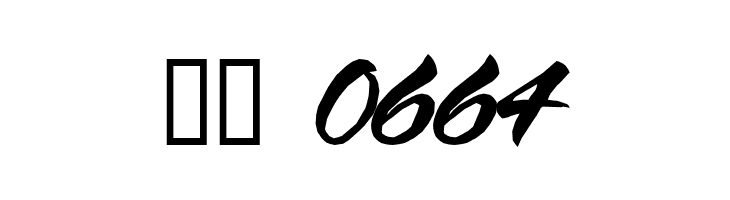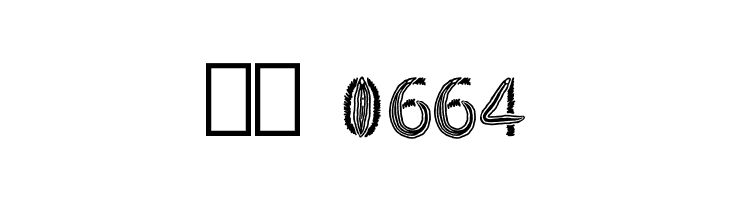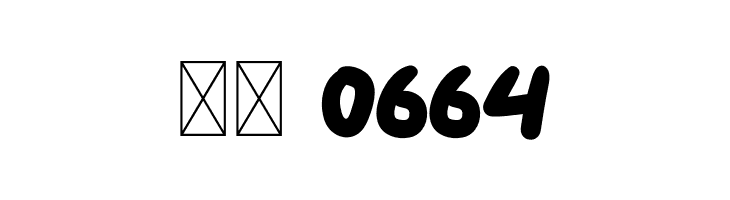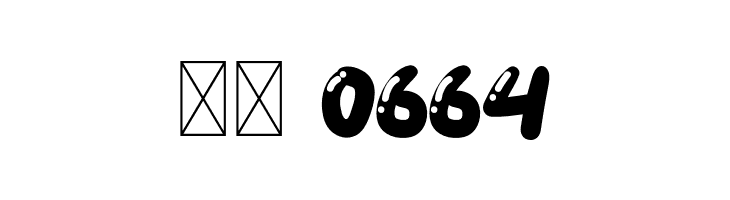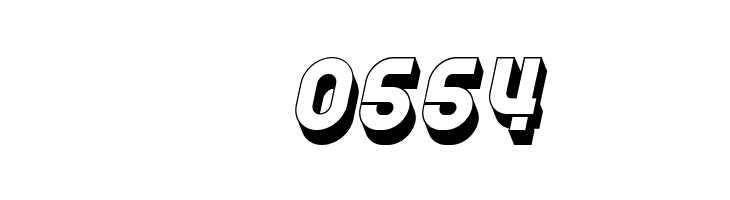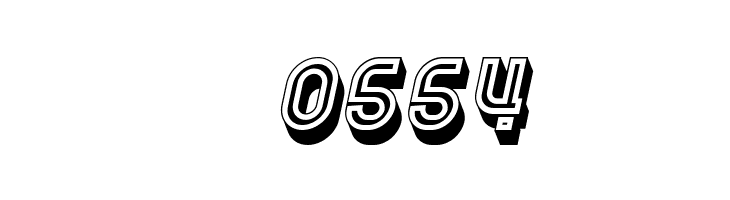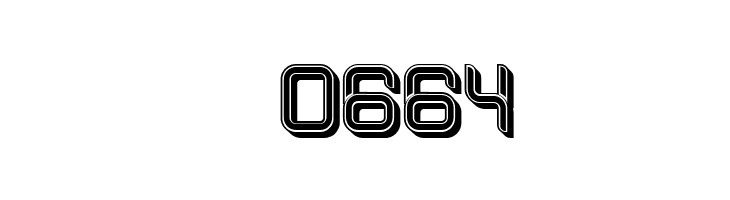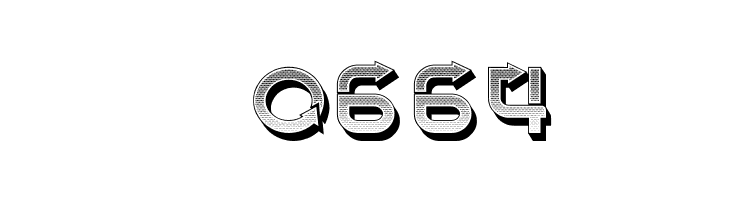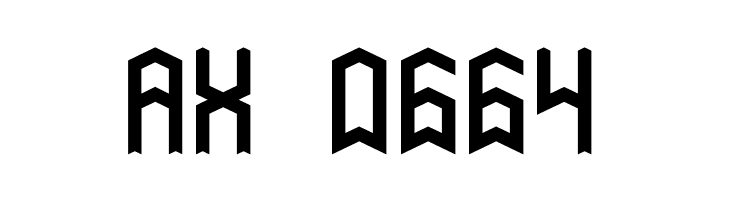
• Vitruvian Regular
A decorative, geometric serif font inspired by classical architecture.
• Vladimir
• Vladimir Regular
A bold, geometric font with a three-dimensional outline effect.
• Vladiviqo
A bold, cursive font with a smooth, flowing style.
• VladTepesII [Vlads Dad]
An ornate Blackletter font with intricate, gothic-inspired designs.
• VNI-Butlong
• VNIThufap3
A dynamic and expressive script font with fluid, cursive letterforms.
• Voklea - Personal Use
A bold, playful font with a hand-drawn, dynamic style.
• VOLDER
A bold, rounded font with a playful and informal style.
• Voleur Hollow Regular
A bold, 3D hollow font with a geometric and dynamic style.
• Voleur Regular
A bold, 3D font with a geometric, blocky style and shadow effect.
• Volgograd Regular
A bold, 3D geometric font with a retro-futuristic style and shadow effects.
• Volstead
A sophisticated script font with elegant, flowing cursive letters and vintage calligraphy style.
• VoltAL
A bold, pixelated font with a digital, retro aesthetic.
• VoltHR
A bold, geometric font with a modern, blocky style.
• VoltKT
A bold, geometric font with a modern, industrial feel.
• Vonday